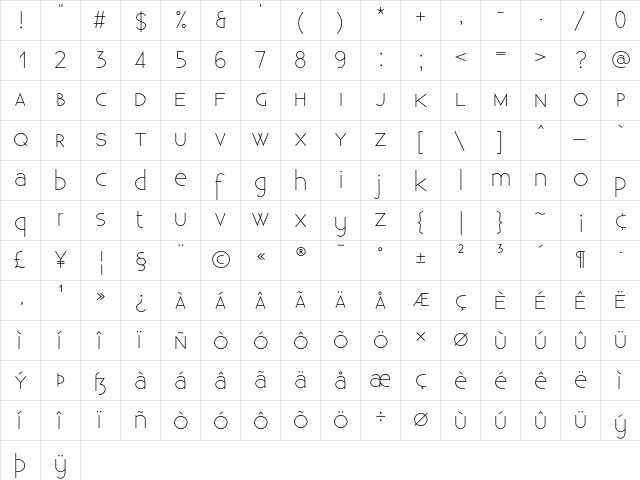
Existence Unicase Light Regular
| Foundry | Yeah Noah |
| Designer | Yeah Noah |
Design Context for Existence Unicase Light Typeface
Existence Unicase Light takes a measured approach to typography — its balanced proportions and neutral character make it a reliable workhorse for both digital and print work. The delicate stroke weight brings airiness and refinement to layouts.